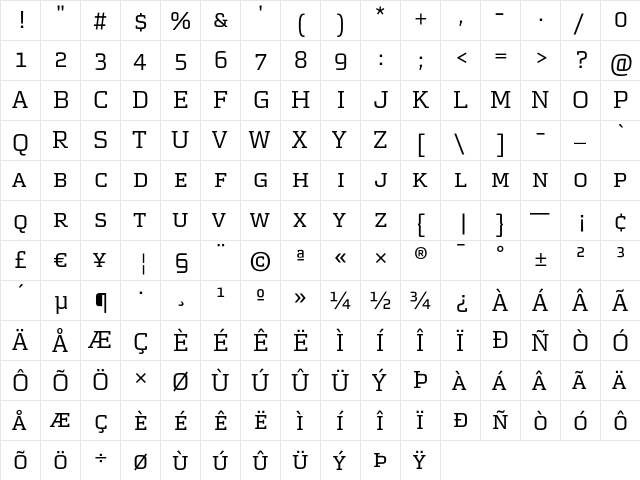
MorganAvec RegularExpert Font Preview
MorganAvec RegularExpert
MorganAvec RegularExpert Font Details
Design Context for MorganAvec Typeface
MorganAvec takes a measured approach to typography — its balanced proportions and neutral character make it a reliable workhorse for both digital and print work.